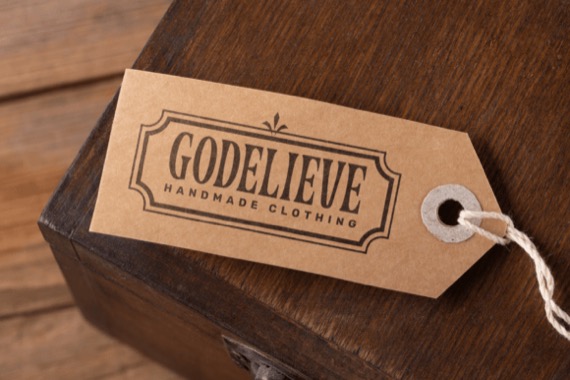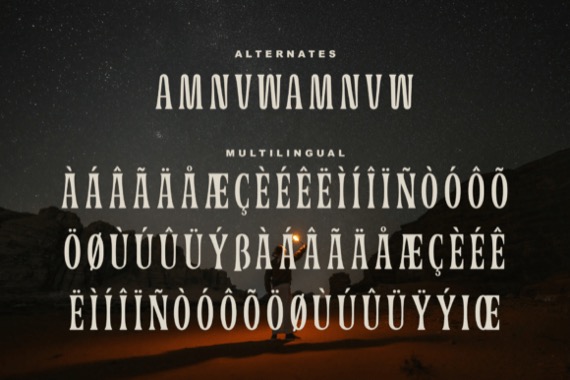
Zenarico Display Font is a distinct, vintage, and classy typeface that was released by Salamahtype. It consists of regular and stamped or textured versions, this font is suitable for application to your logos, labels, posters or any product that wants a classic look.
Zenarico Vintage Display Font
Designer, Publisher: Salamahtype